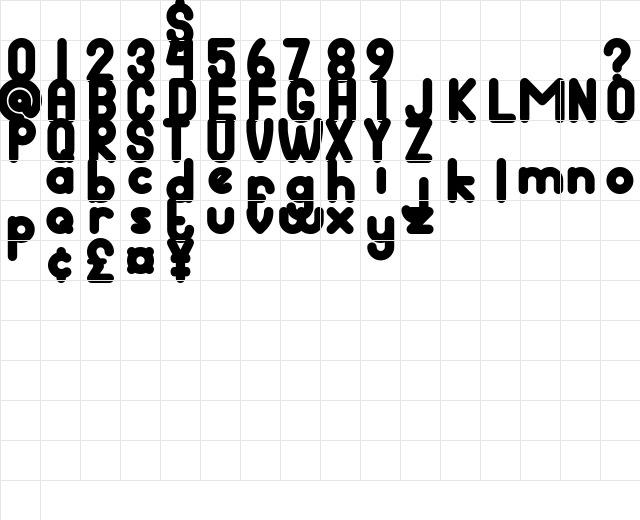
Complete dingo the singing dog DEMO Regular glyph index. Displaying only characters natively supported by dingo the singing dog DEMO Regular font.
dingo the singing dog DEMO is a composed and adaptable typeface that performs quietly and consistently across a wide range of design contexts.
Pro Tip: Use dingo the singing dog DEMO in both headline and body roles to test its range before committing to a single application.